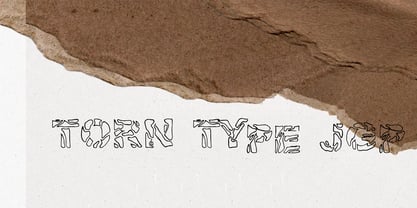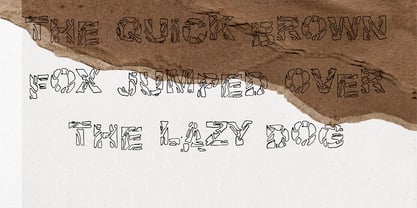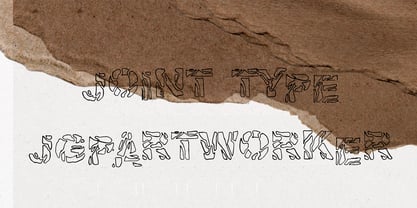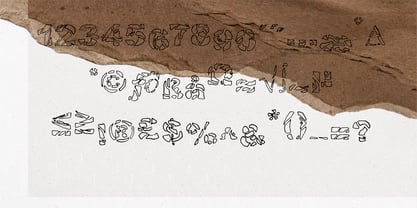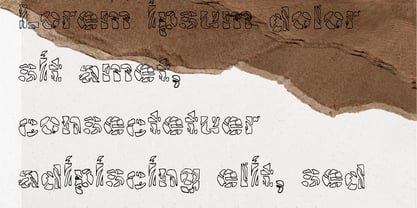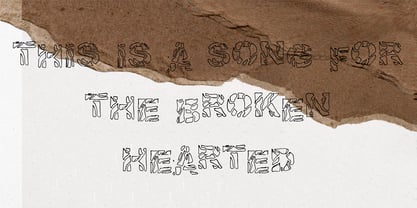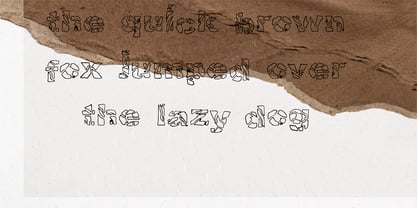
Torntypejgp
von Jointype
Die Schriftfamilie Torntypejgp wurde von Jeremy Gill-Praba entworfen und von Jointype veröffentlicht. Torntypejgp enthält 1 Stile.
This type face is based on tears and torn paper as the name suggests ,it is ment to create a feel of distress and punk rock vibes.